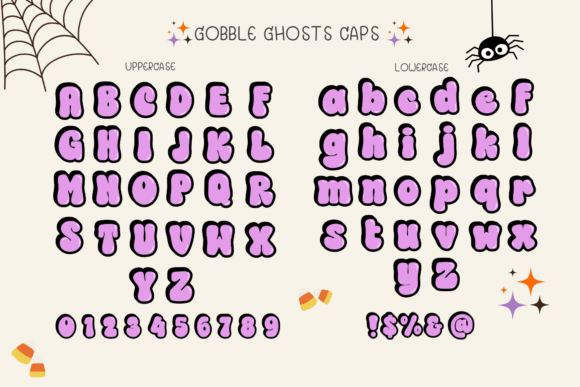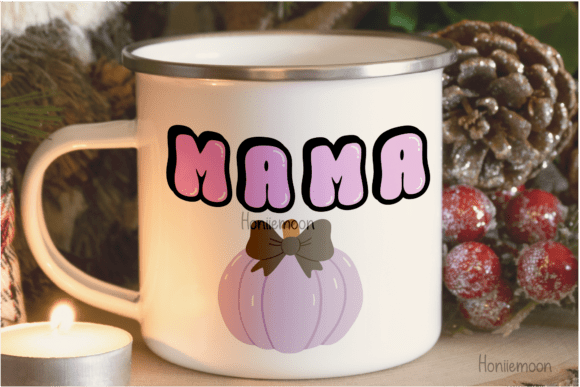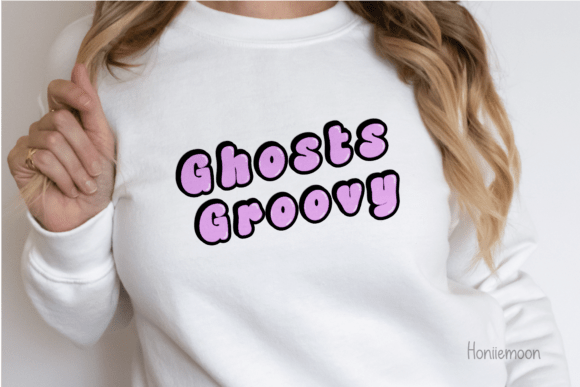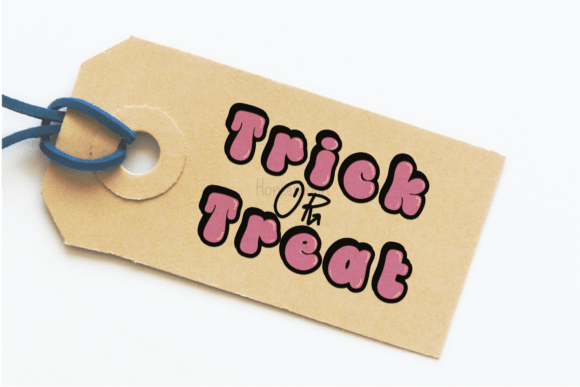
Gobble Ghosts Font: The Perfect Addition to Your Halloween Decor
As the spookiest time of the year approaches, designers and crafters are on the lookout for the perfect fonts to add a touch of eerie elegance to their Halloween projects. Look no further than the Gobble Ghosts Font, a cute and spooky Halloween color font that’s sure to cast a spell on your audience.
What is Gobble Ghosts Font?
Gobble Ghosts is a unique and playful font featuring puffy, candy-like letters in pastel tones with a playful black outline. The result is a font that’s both cute and spooky, perfect for trick-or-treat invites, seasonal crafts, kids’ party decor, and fun fall projects.
Key Features of Gobble Ghosts Font
- Cute and Spooky Design: The Gobble Ghosts Font features a unique and playful design that’s perfect for Halloween projects.
- Pastel Tones: The font features pastel tones that add a touch of sweetness to your designs.
- Playful Black Outline: The black outline adds a playful touch to the font, making it perfect for kids’ party decor and other fun projects.
Using Gobble Ghosts Font for Your Halloween Projects
The Gobble Ghosts Font is perfect for a variety of Halloween projects, including:
- Trick-or-Treat Invites: Create spooky and fun invitations for trick-or-treaters with the Gobble Ghosts Font.
- Seasonal Crafts: Add a touch of Halloween spirit to your seasonal crafts, such as decorations, cards, and gift tags.
- Kids’ Party Decor: Create fun and playful party decor, such as banners, garlands, and signs, with the Gobble Ghosts Font.
- Fun Fall Projects: Use the Gobble Ghosts Font to add a touch of Halloween spirit to your fall projects, such as scrapbooking pages, photo albums, and more.
Tips for Using Gobble Ghosts Font
Here are a few tips for using the Gobble Ghosts Font:
- Use with Other Halloween Elements: Pair the Gobble Ghosts Font with other Halloween elements, such as images, graphics, and textures, to create a cohesive look.
- Experiment with Colors: Experiment with different colors and combinations to create a unique look that suits your project.
The Gobble Ghosts Font is a fun and playful addition to any Halloween project. With its cute and spooky design, pastel tones, and playful black outline, it’s perfect for trick-or-treat invites, seasonal crafts, kids’ party decor, and fun fall projects. Whether you’re a designer or crafter, the Gobble Ghosts Font is sure to cast a spell on your audience.